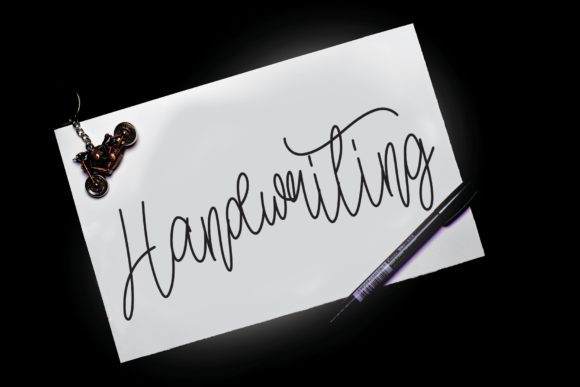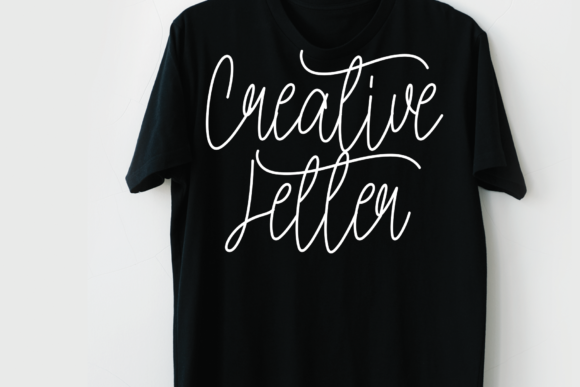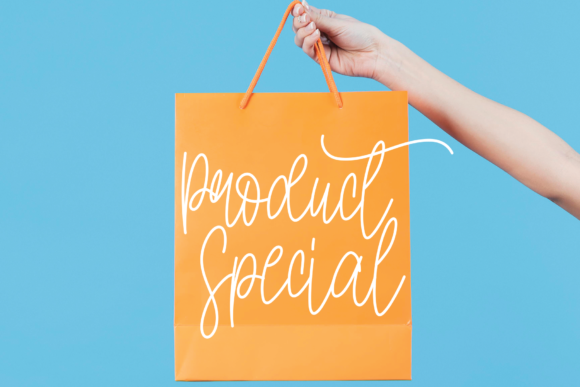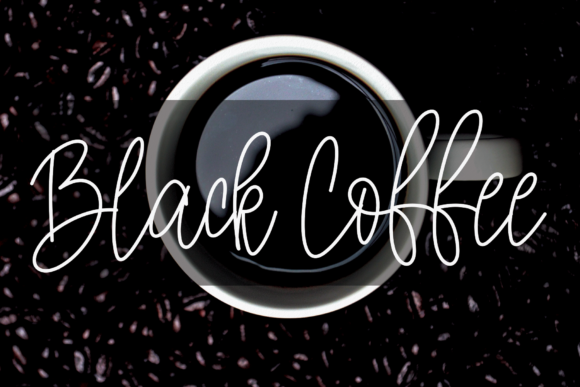
Elevate Your Craft with Black Coffee Font: A Delicate and Thin Lettered Script Font
Are you a designer, crafter, or DIY enthusiast looking for a font that can add a touch of elegance and sophistication to your projects? Look no further than Black Coffee Font, a delicate and thin lettered script font that is sure to elevate a wide range of crafting ideas. From cards and invitations to branding, labels, and more, Black Coffee Font is the perfect choice for anyone looking to add a personal and refined touch to their work.
What is Black Coffee Font?
Black Coffee Font is a beautiful script font that features delicate and thin lettering, making it perfect for a variety of crafting projects. Its elegant and refined design ensures that it will add a touch of sophistication to any project, from formal invitations to brand logos and packaging. Whether you’re a professional designer or a DIY enthusiast, Black Coffee Font is a versatile and stylish choice that is sure to impress.
Key Features of Black Coffee Font
- Delicate and thin lettering: Black Coffee Font features delicate and thin lettering that is perfect for adding a touch of elegance and sophistication to your projects.
- Script font: Black Coffee Font is a script font that features flowing and connected letters, making it perfect for creating beautiful and refined text.
- Versatile: Black Coffee Font is a versatile font that can be used for a wide range of crafting projects, from cards and invitations to branding and packaging.
- Elegant and refined: Black Coffee Font has an elegant and refined design that is sure to add a touch of sophistication to any project.
Uses for Black Coffee Font
Black Coffee Font is a versatile font that can be used for a wide range of crafting projects, including:
- Cards and invitations: Black Coffee Font is perfect for creating beautiful and elegant cards and invitations for special occasions.
- Branding and packaging: Black Coffee Font can be used to create beautiful and refined brand logos and packaging that will help your business stand out.
- Labels and tags: Black Coffee Font is a great choice for creating elegant and refined labels and tags for your crafting projects.
- DIY projects: Black Coffee Font can be used for a wide range of DIY projects, from home decor to scrapbooking and more.
Tips for Using Black Coffee Font
Here are a few tips for using Black Coffee Font in your crafting projects:
- Use it sparingly: Black Coffee Font is a delicate and thin font, so it’s best to use it sparingly to add a touch of elegance and sophistication to your projects.
- Pair it with other fonts: Black Coffee Font can be paired with other fonts to create a unique and interesting look.
- Experiment with different sizes: Black Coffee Font can be used in a variety of sizes, from small and delicate to large and bold.
Black Coffee Font is a beautiful and elegant script font that is perfect for adding a touch of sophistication to a wide range of crafting projects. Its delicate and thin lettering makes it a versatile and stylish choice for designers, crafters, and DIY enthusiasts. Whether you’re creating cards and invitations, branding and packaging, or labels and tags, Black Coffee Font is sure to elevate your project and add a personal and refined touch.